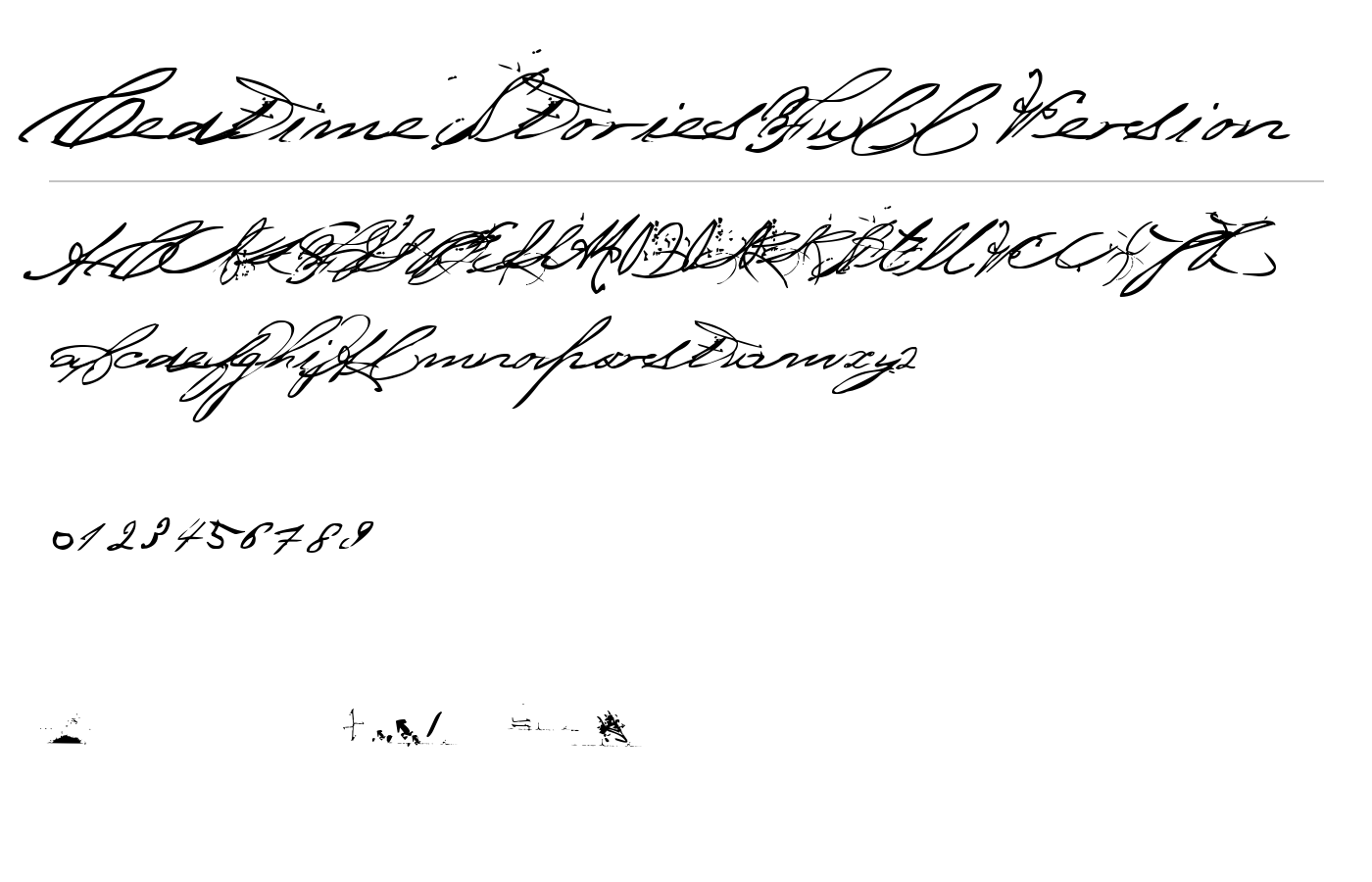
Bedtime Stories Full Version is an expressive, elegant script font that captures the feel of authentic, flowing handwriting with a delicate and intricate stroke style. Its thin, cursive letters have a whimsical, vintage charm with a casual yet refined personality, making it ideal for invitations, branding, and creative projects that seek a personal, romantic touch. This font works especially well in decorative uses where a graceful and distinctive handwritten look is desired.
Bedtime Stories Full Version Font